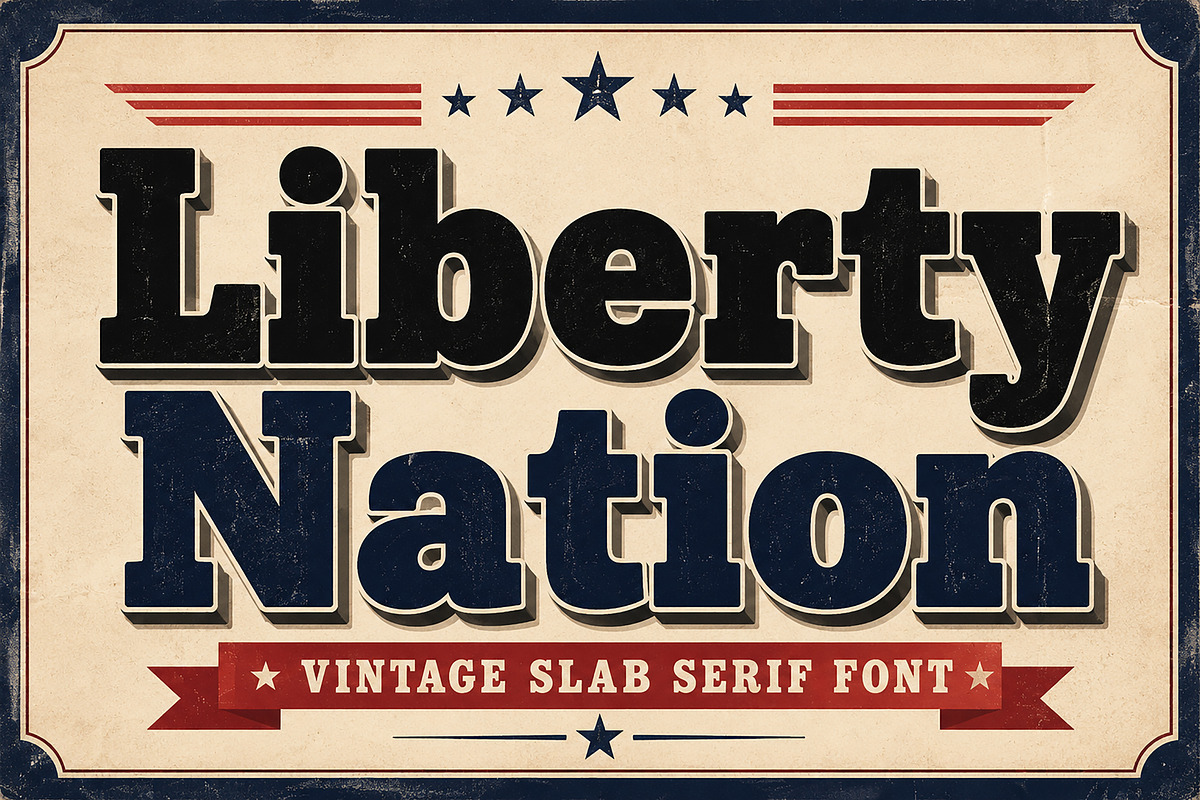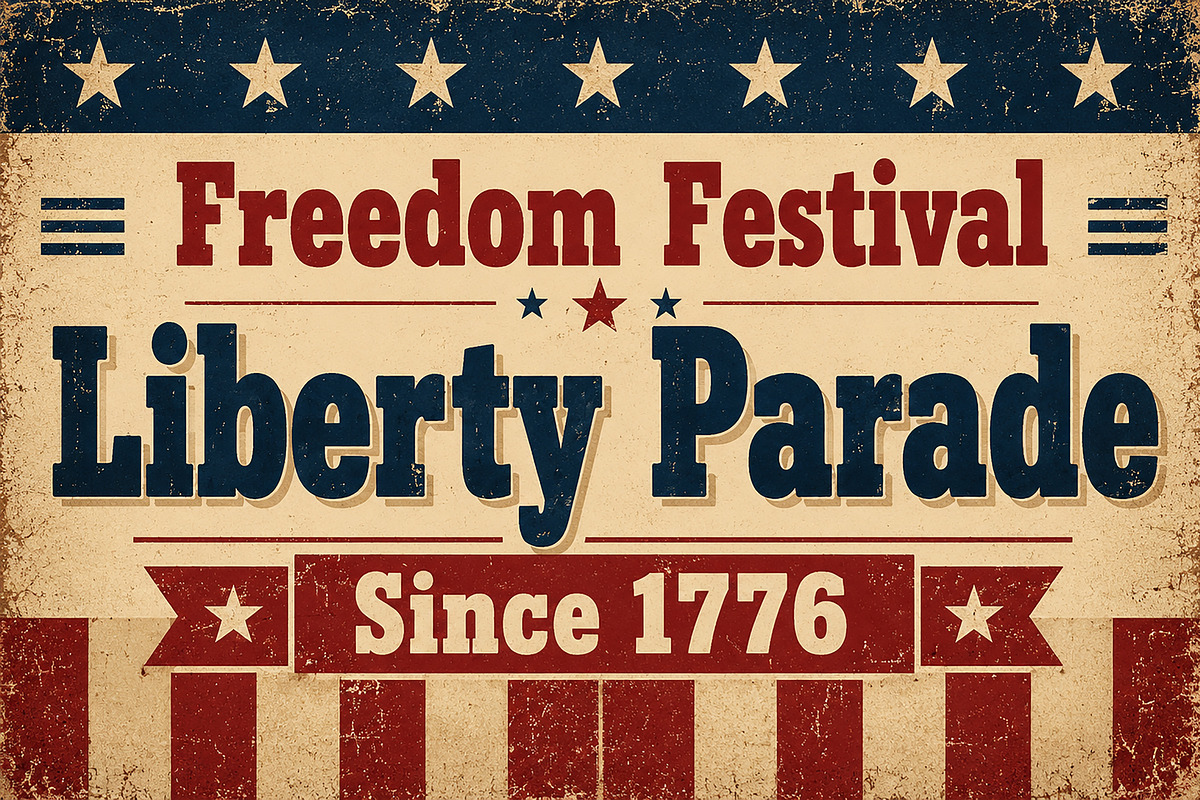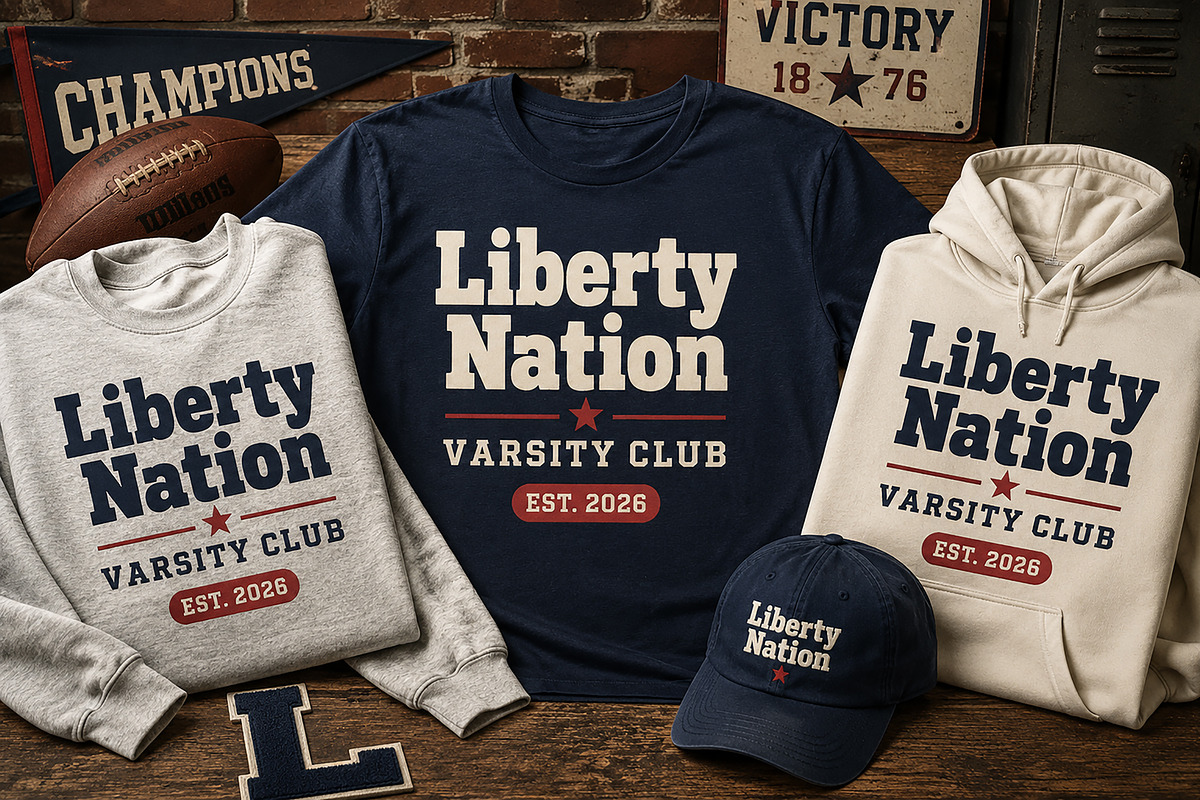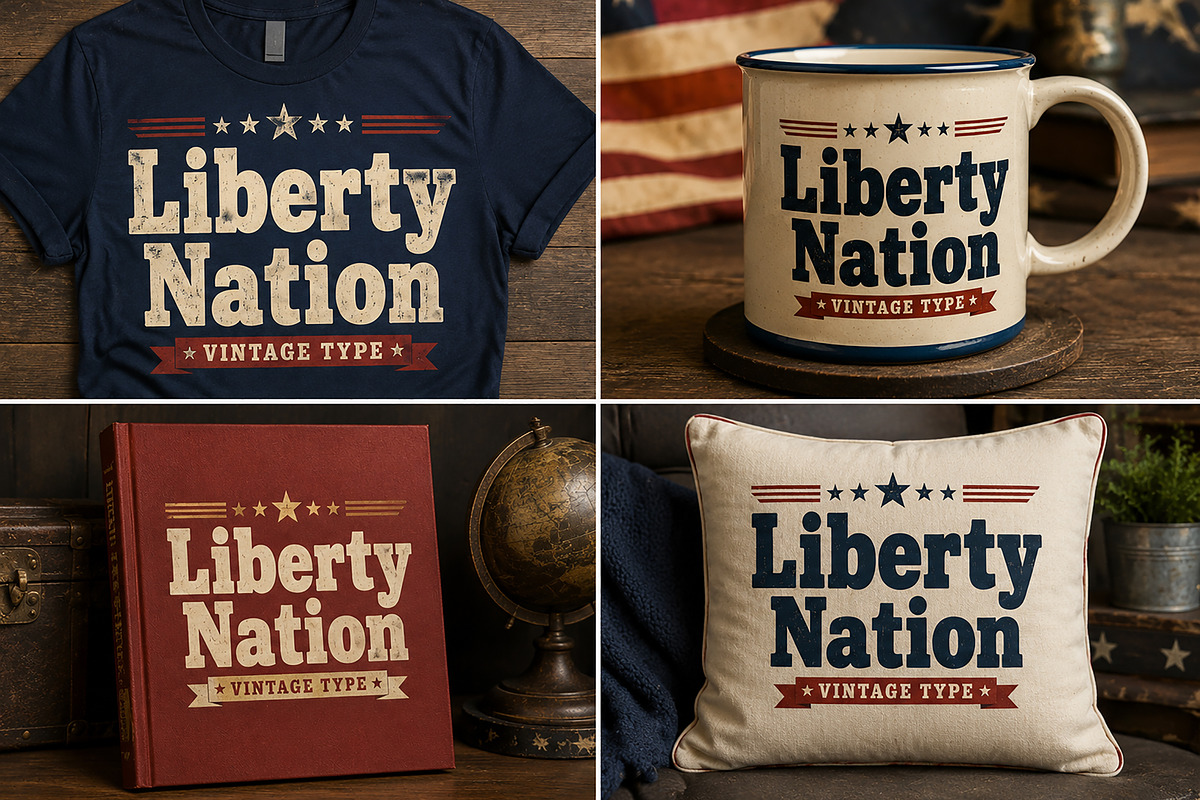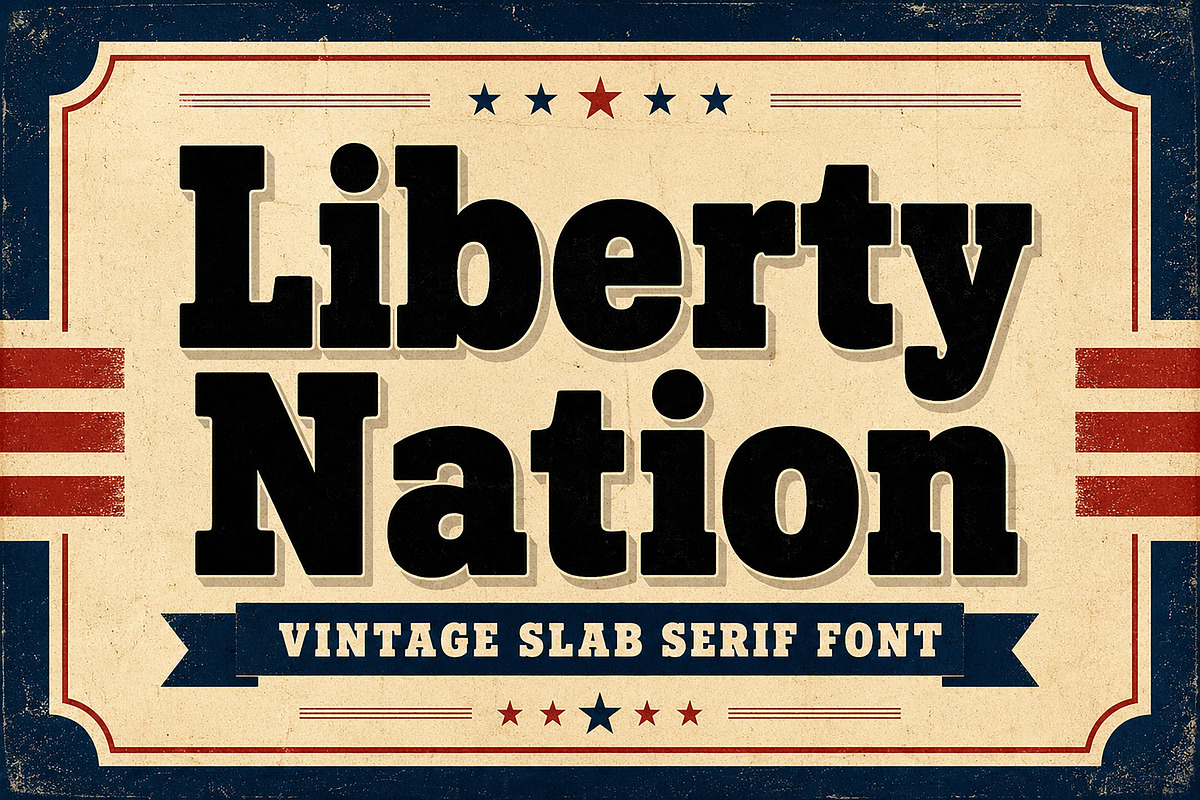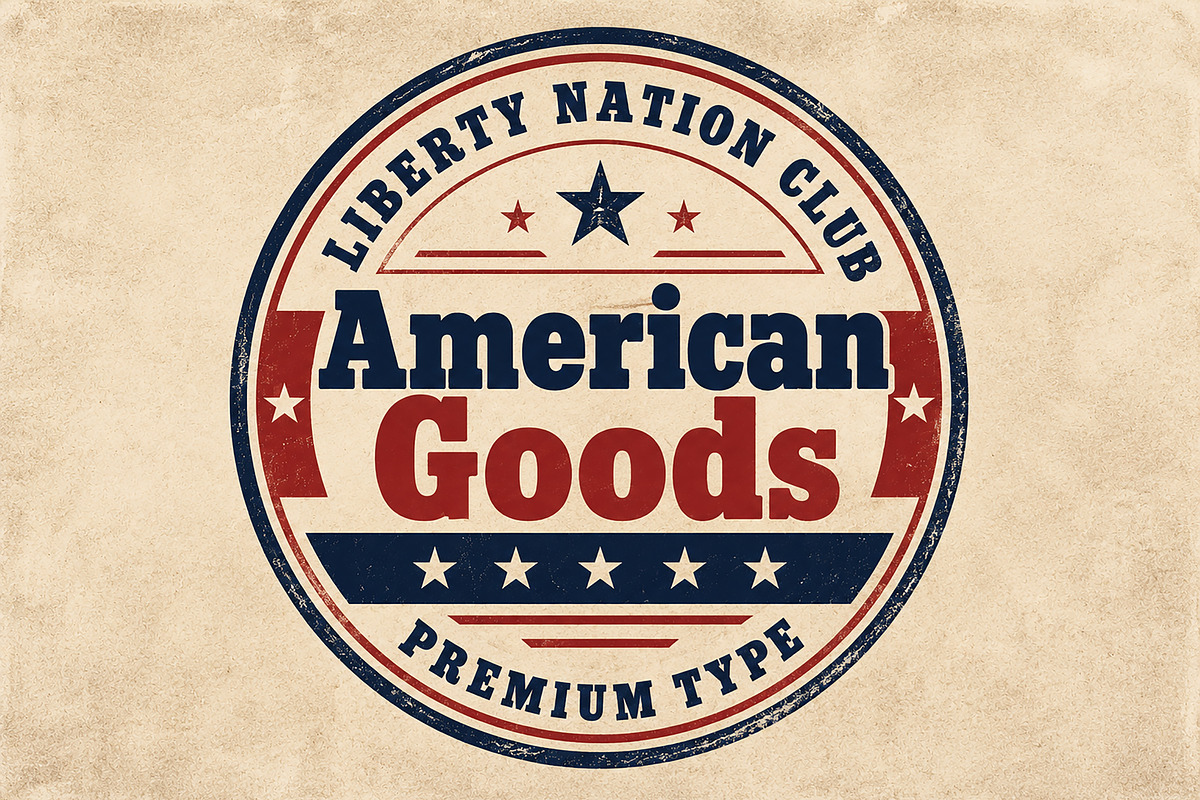
Liberty Nation
Liberty Nation – Vintage Slab Serif Font
Liberty Nation is a bold vintage slab serif font inspired by classic American typography, varsity lettering, western signage, and retro patriotic design styles. Featuring strong block letterforms with a timeless rugged character, this font is perfect for creating eye-catching headlines, logos, apparel graphics, badges, posters, packaging, and branding projects.
With its bold structure and authentic vintage feel, Liberty Nation works beautifully for t-shirt designs, sports branding, Americana themes, collegiate layouts, retro labels, stickers, merchandise, and promotional graphics. The font delivers a powerful old-school personality while remaining clean, readable, and versatile for modern creative projects.
Whether you're designing vintage logos, patriotic posters, western branding, or varsity apparel, Liberty Nation brings a bold and confident retro aesthetic to your work.
Bold Slab Serif Style
Vintage Americana Look
Strong Retro Letterforms
Clean & Readable Design